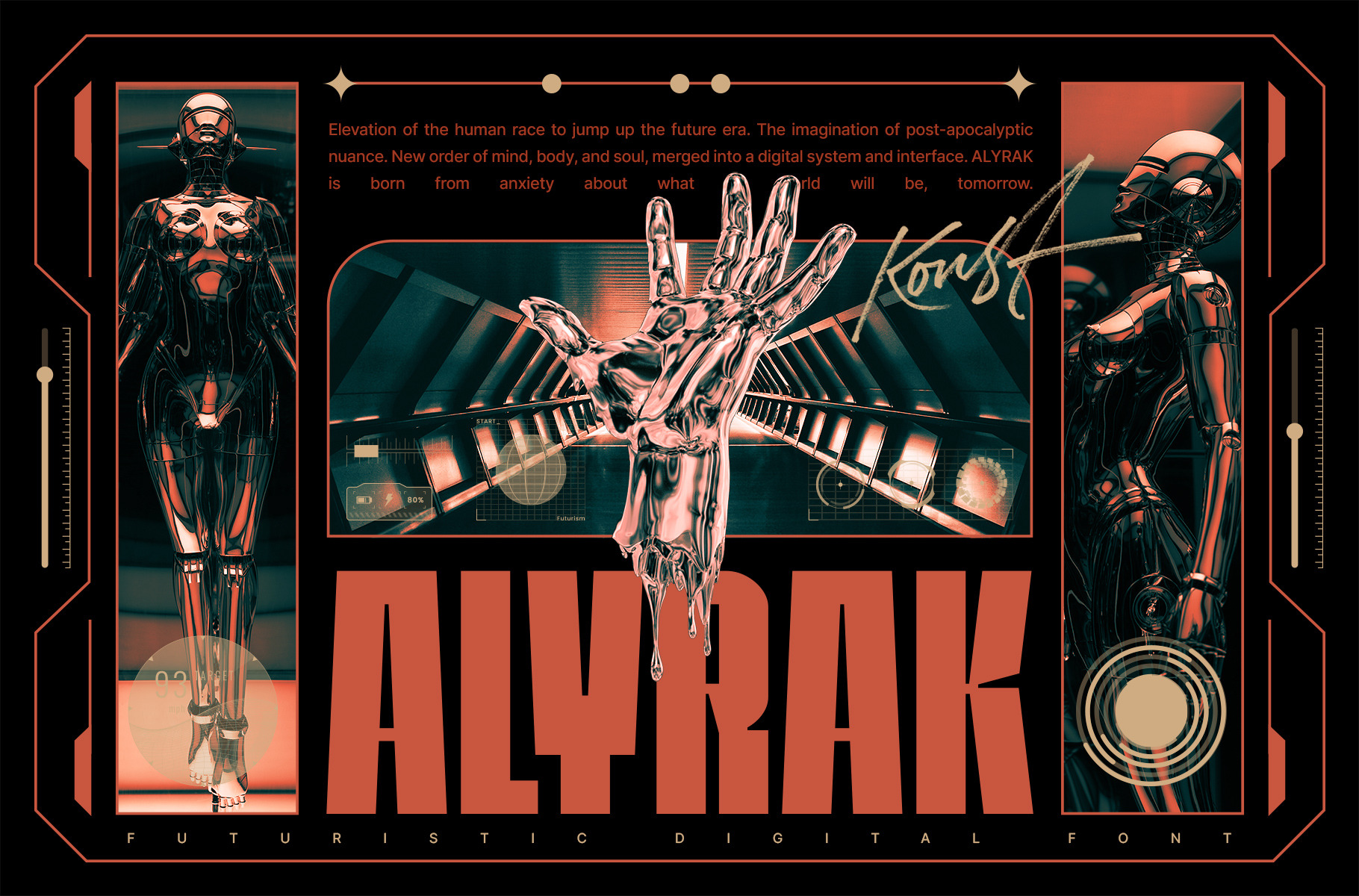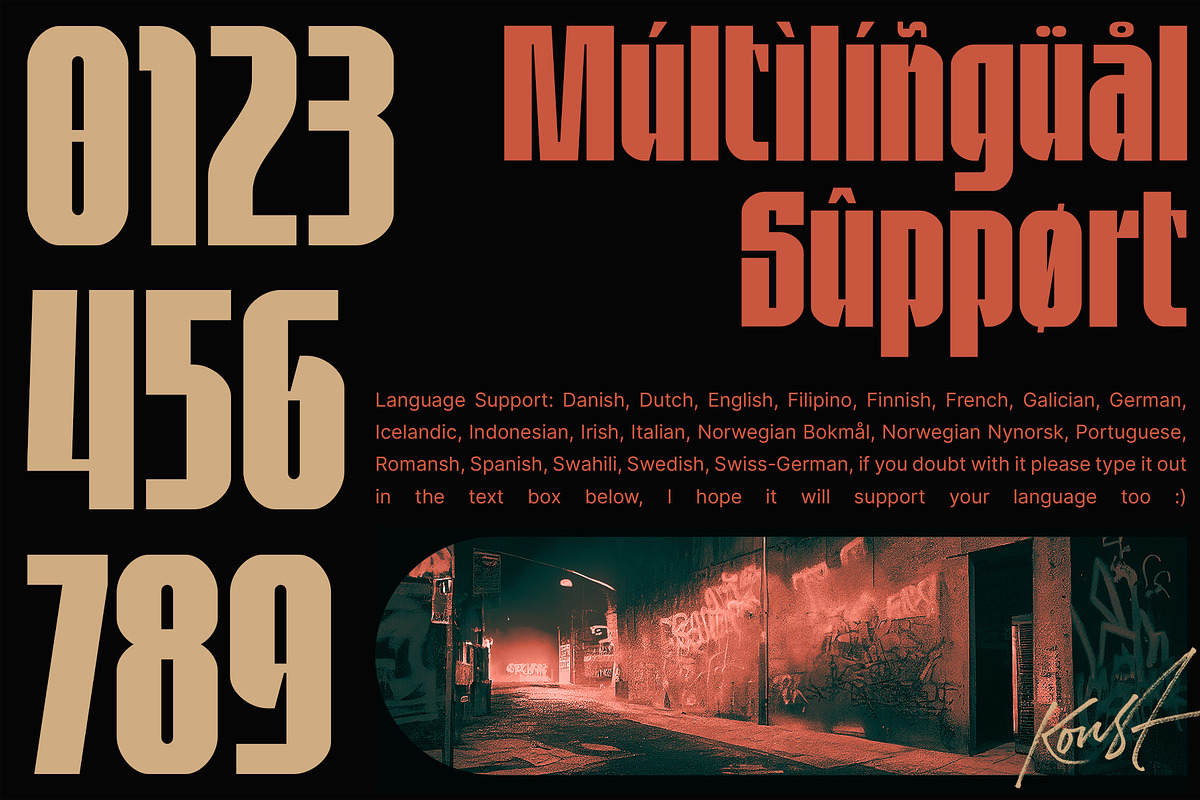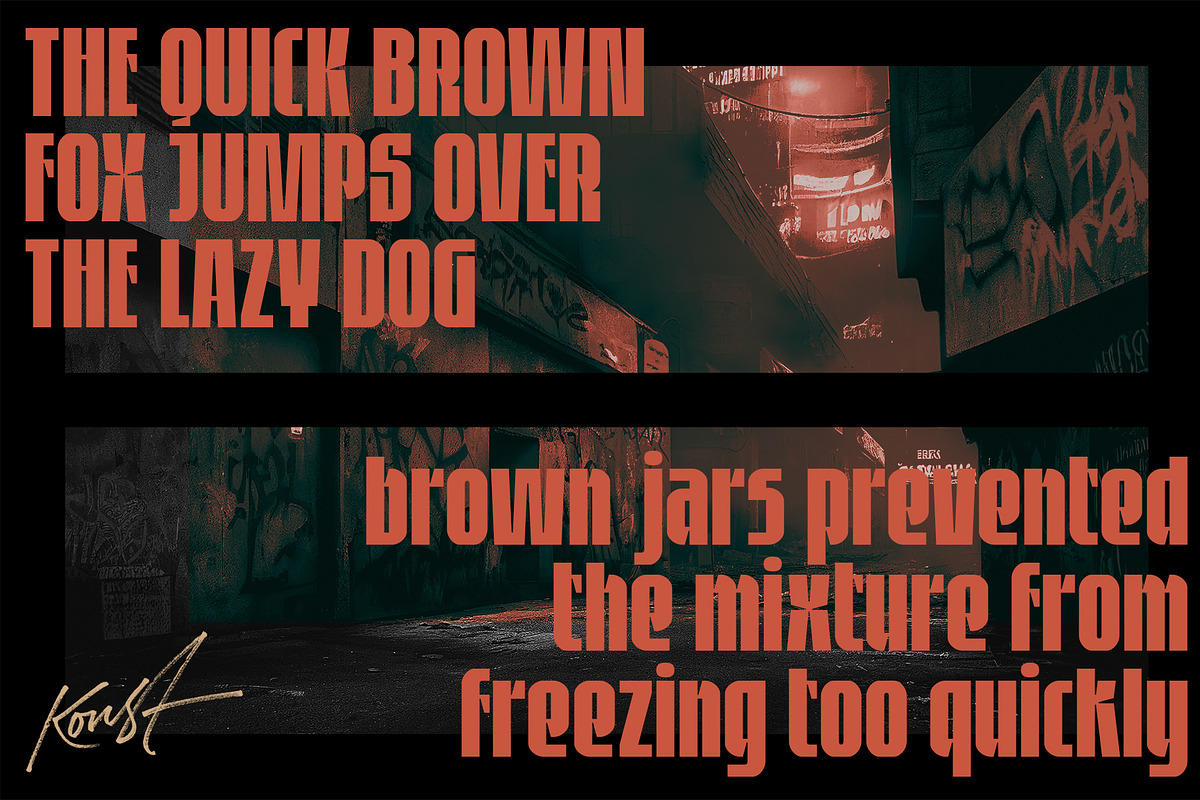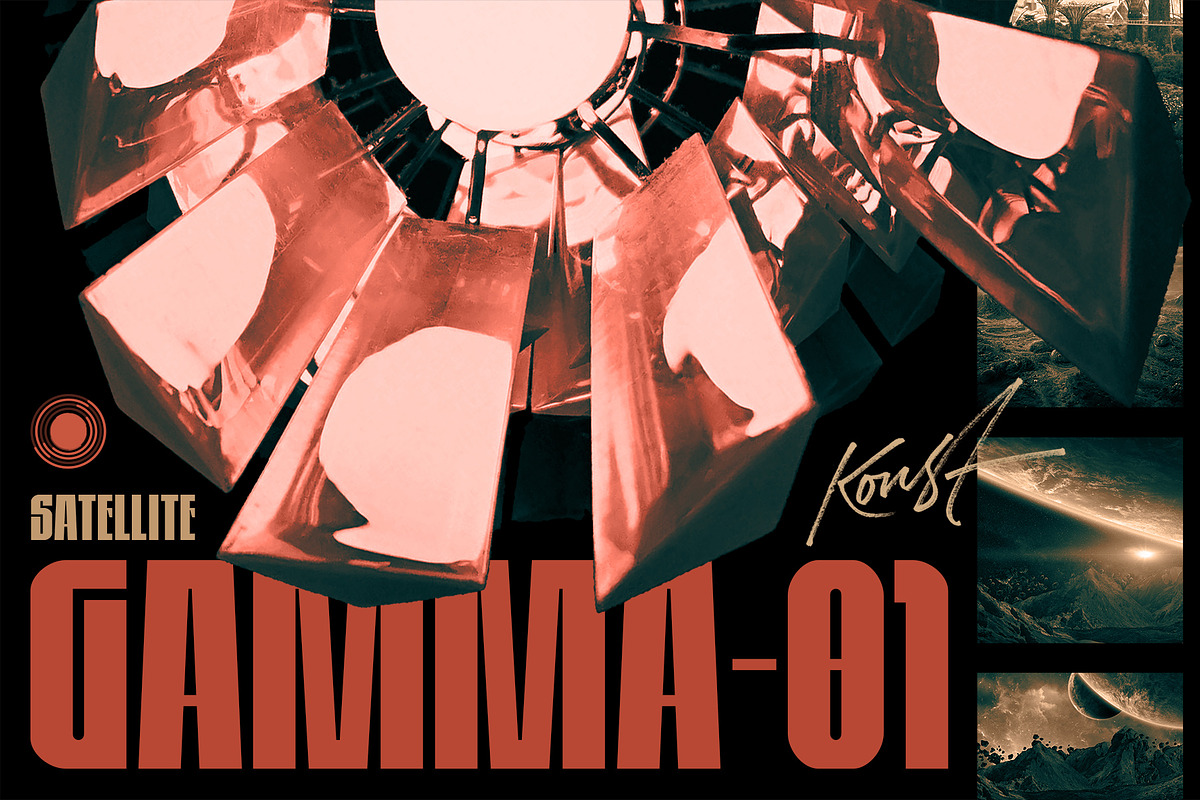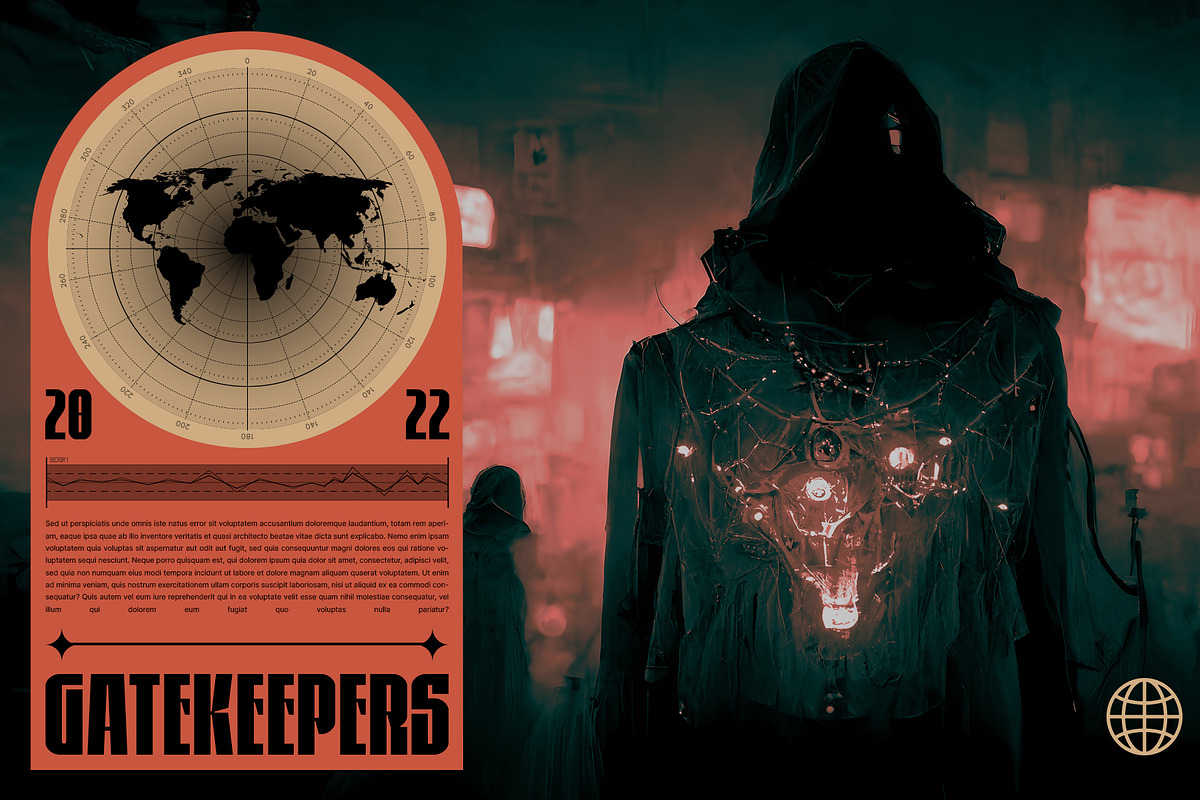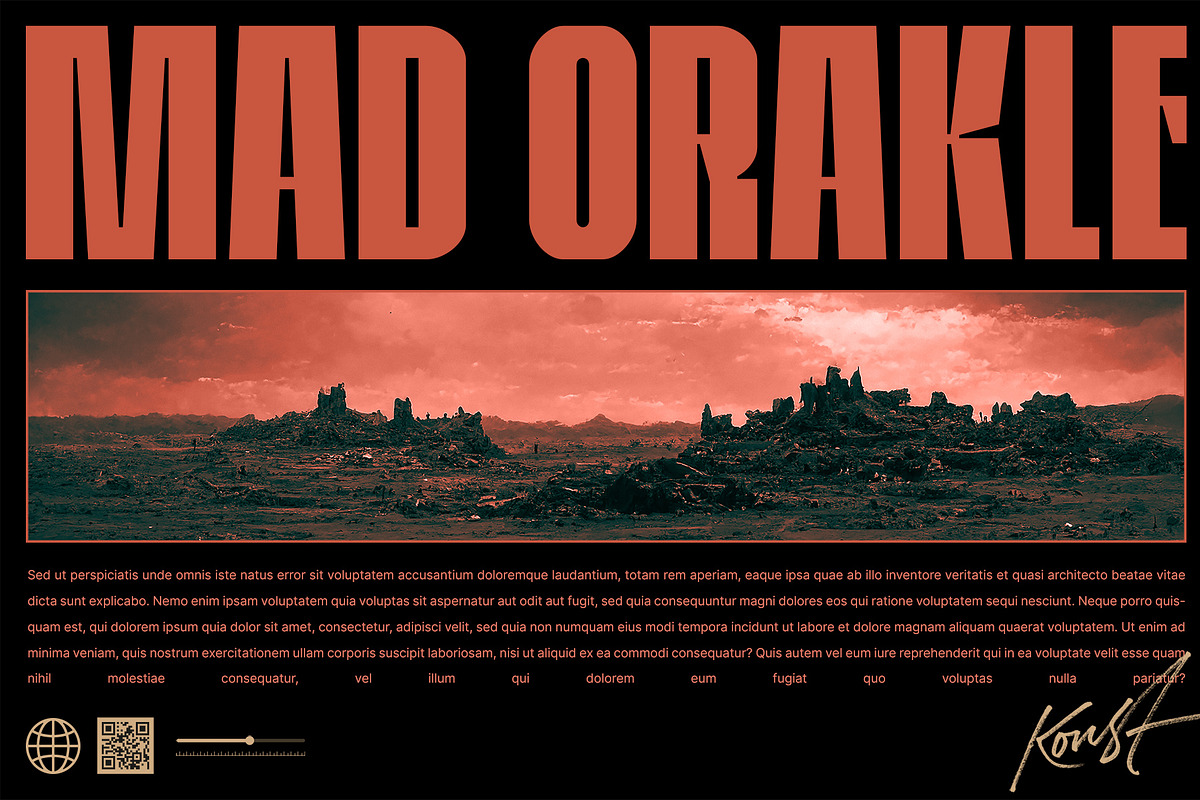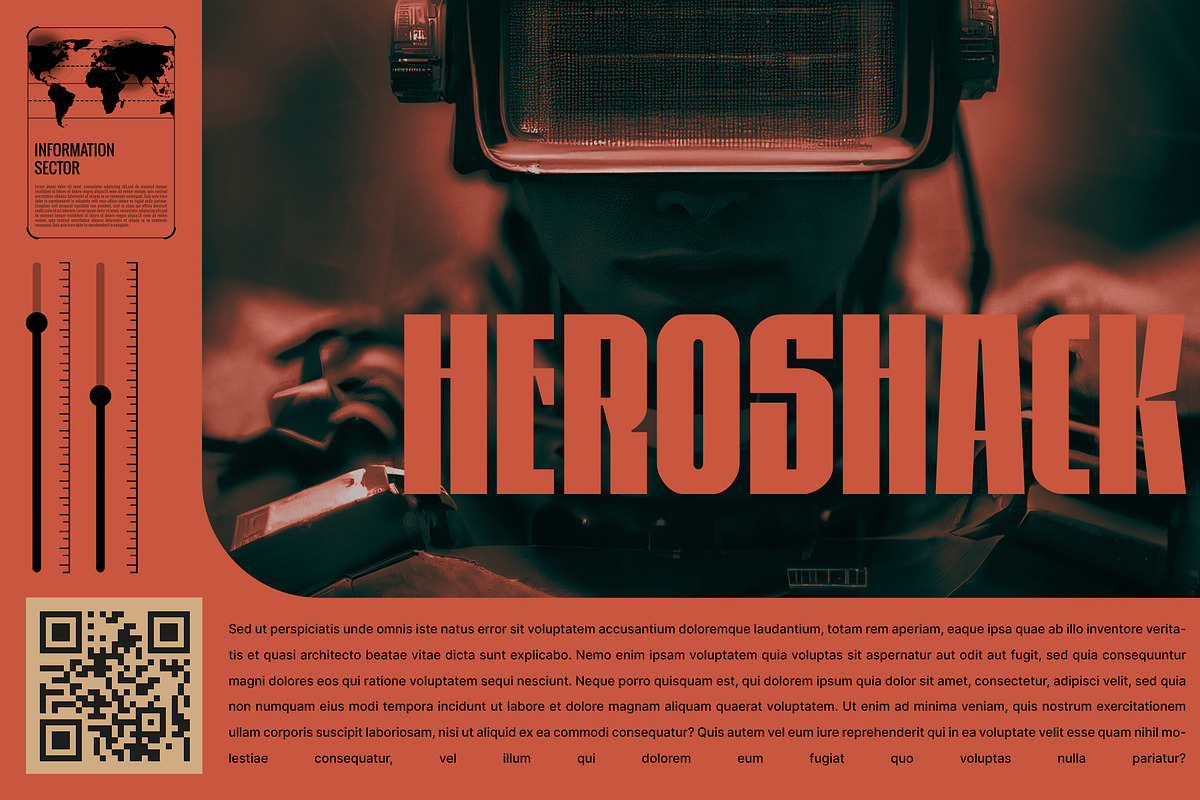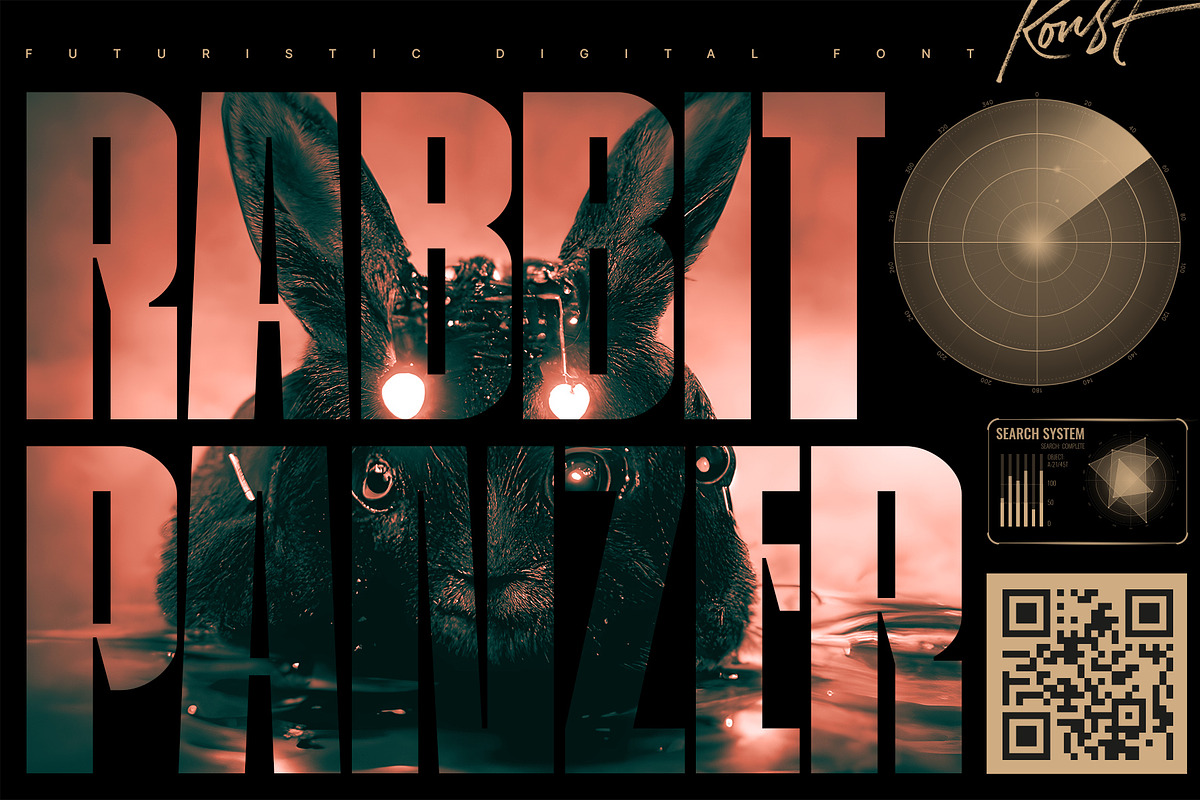
Alyrak - Futuristic Tech Fonts
ALYRAK is born from the anxiety of the future dystopia of the human race. The fear of Artificial Intelligence, robots, and technology that potentially invade living things. Represented in a font and visual to emulate the vibe every time you type it from your keyboard.
Perfectly fit for gaming stuff, branding, logo, digital concept, game design, UI, UX, synthwave, vaporwave, futuristic poster, brutalism, graphic design, techwear apparel, vehicles, robots, toys, anytime you need a future touch.
Language Support: Albanian, Basque, Catalan, Cornish, Croatian, Czech, Danish, Dutch, English, Esperanto, Estonian, Faroese, Finnish Scots, French, Gaelic, Galician, German, Greek Transliterated, Hawaiian, Hungarian, Icelandic, Indonesian, Irish, Italian, Latvian, Lithuanian, Maltese, Nynorsk Bokmal Norwegian, Polish, Portuguese, Romanian, Slovak, Slovenian, Spanish, Swedish, Turkish, Welsh. If you doubt with it please type it out in the text box below, I hope it will support your language too :)